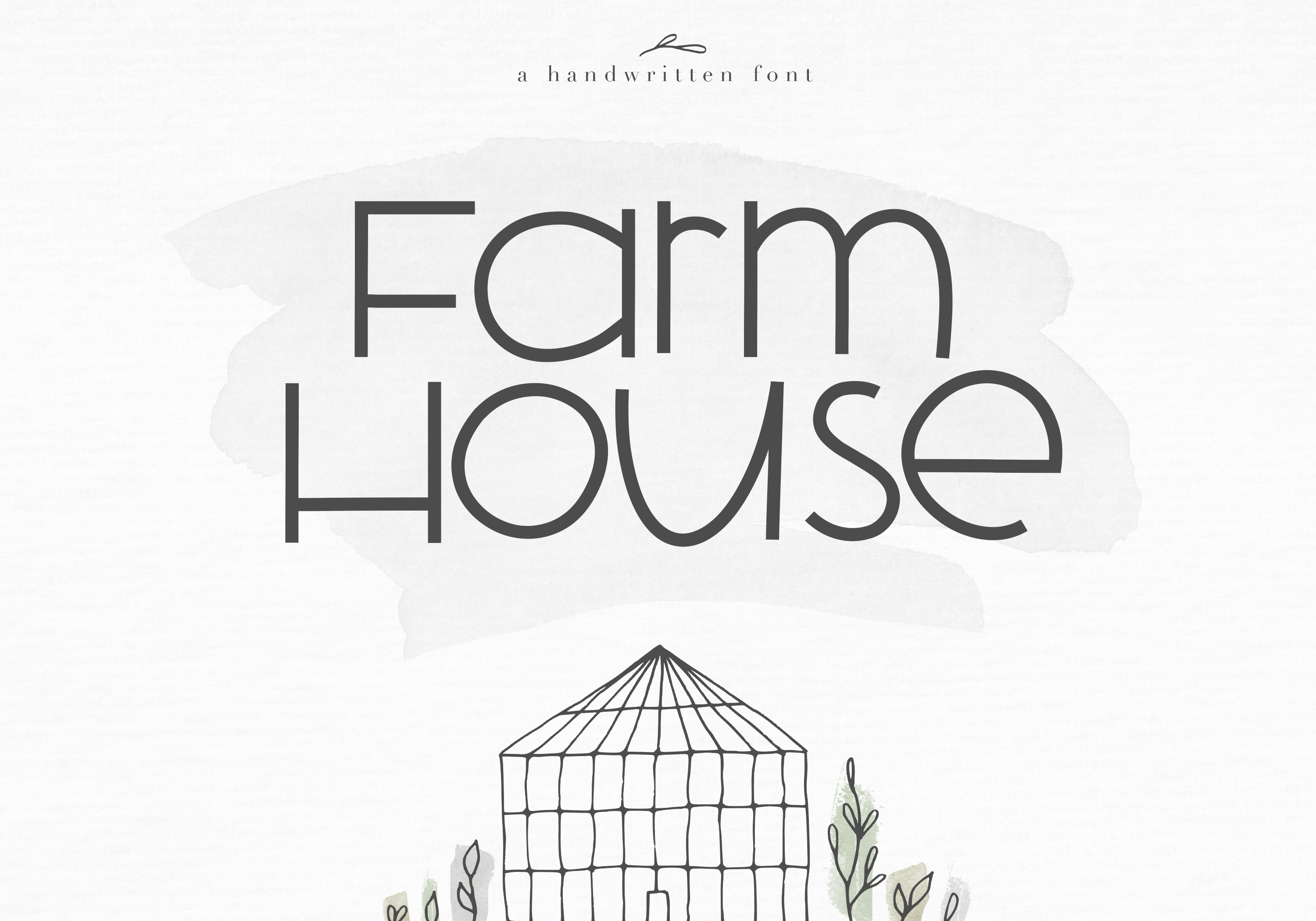
Farmhouse is a bold and tall handwritten font. This font is perfect for quotes, headings, blogs, logos, invitations and more! It is especially useful for children's designs, tee shirts, mugs and posters!
This font does include accent characters.